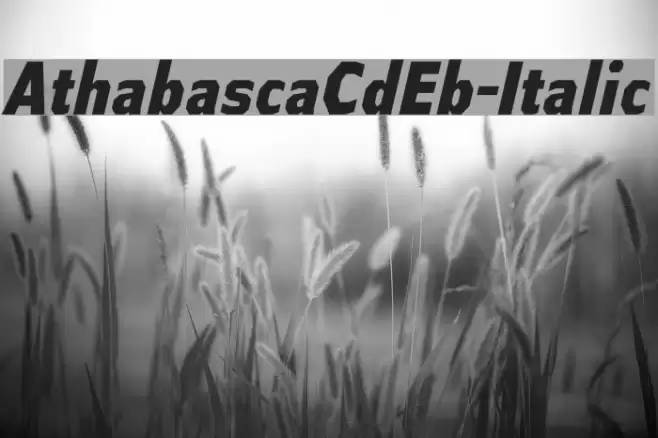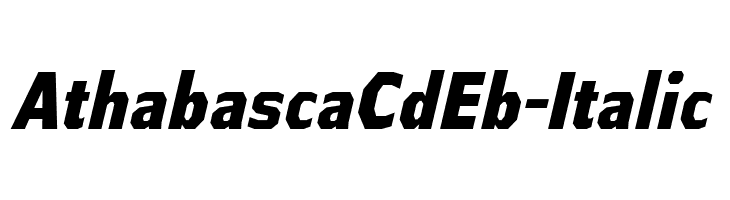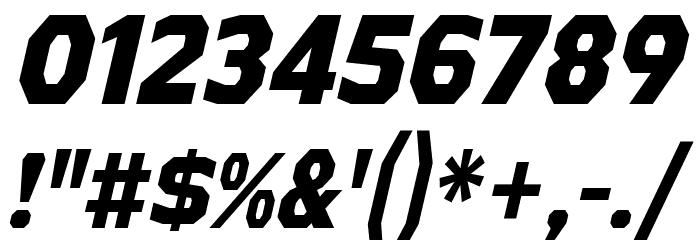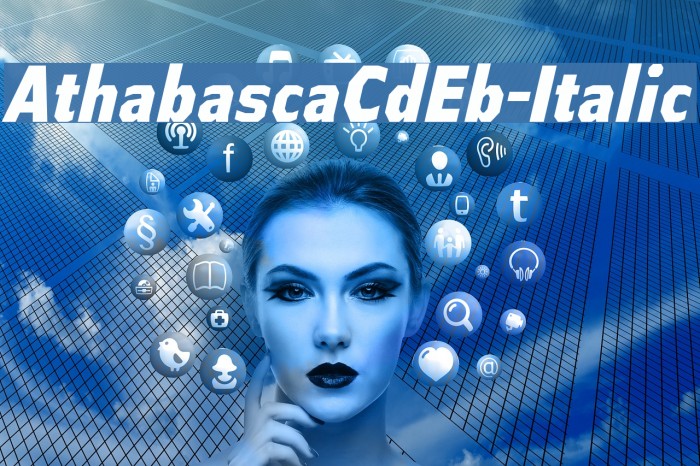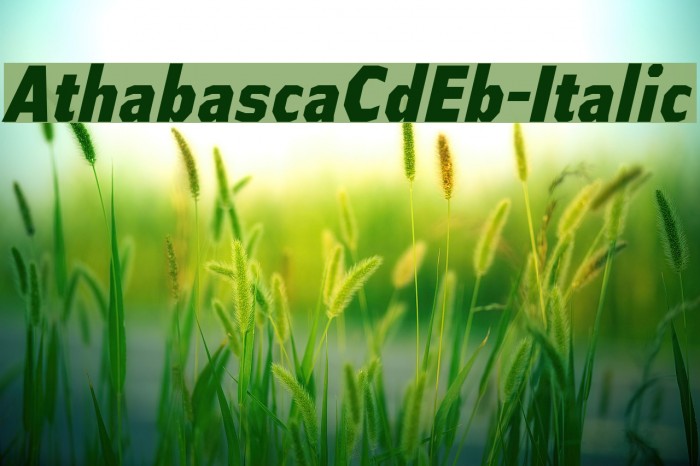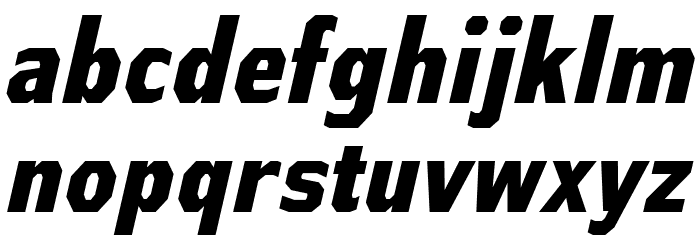
AthabascaCdEb-Italic Font
AthabascaCdEb-Italic Description
This font features a bold and dynamic italic style, characterized by its strong, angular lines and a forward-leaning posture that conveys a sense of movement and urgency. The uppercase and lowercase letters maintain a consistent weight, providing a uniform appearance across the text. The numerals and special characters are designed to match the boldness of the alphabet, ensuring readability and visual impact. The font's design is modern and assertive, making it suitable for attention-grabbing applications. Its italic nature adds a layer of sophistication and flair, enhancing its appeal for creative projects.
Bold, italic font with angular lines and a dynamic, modern style from Uncategorized fonts.
- Proposed Projects: Ideal for branding, advertising, sports team logos, and dynamic headlines.
- Use Case: Headlines, Logos, Advertising